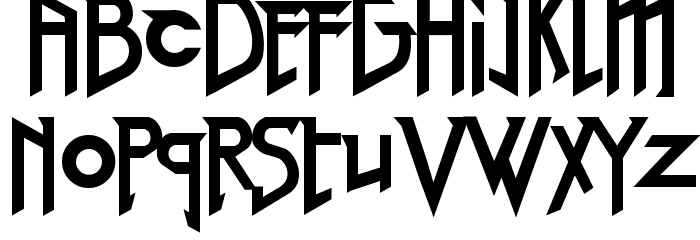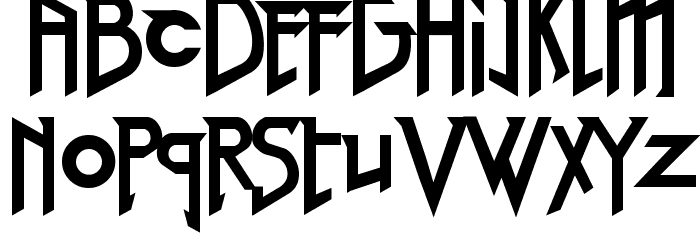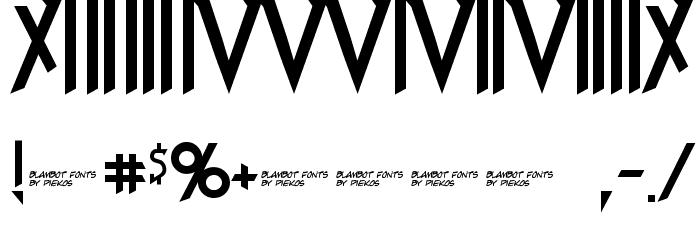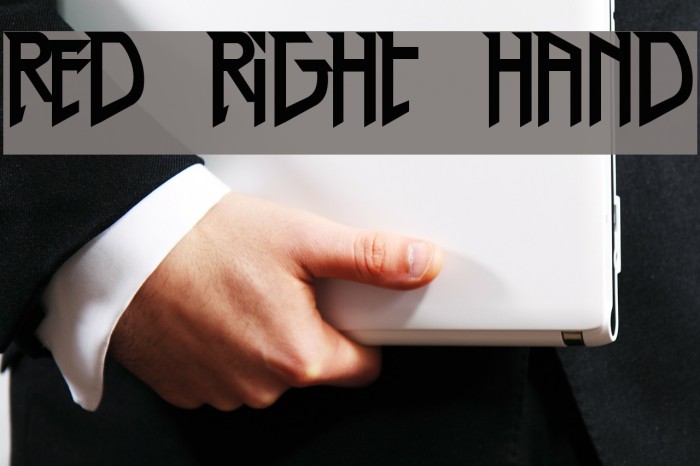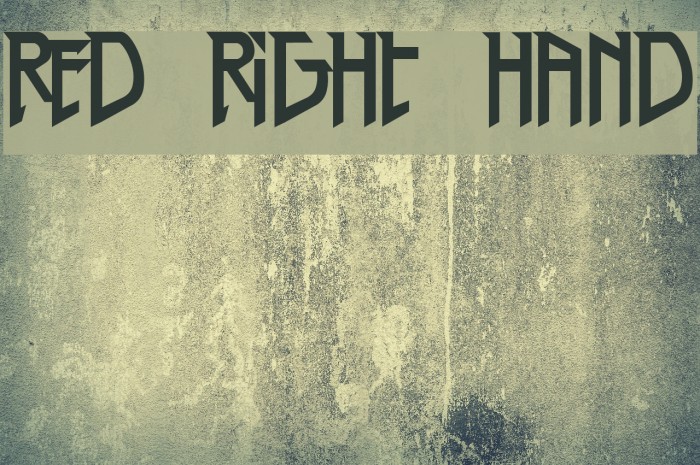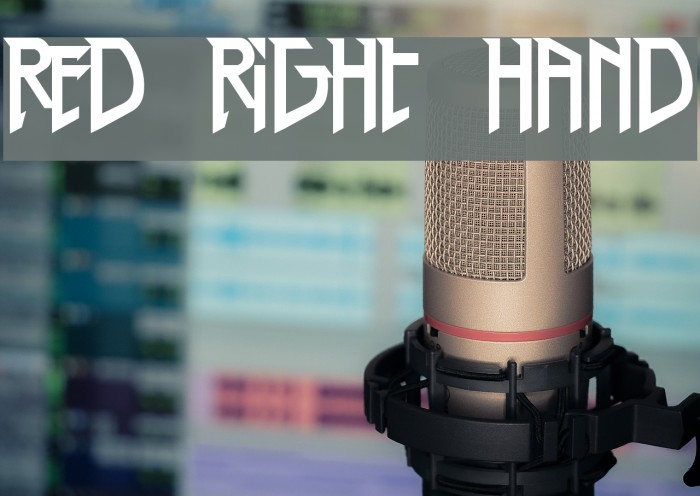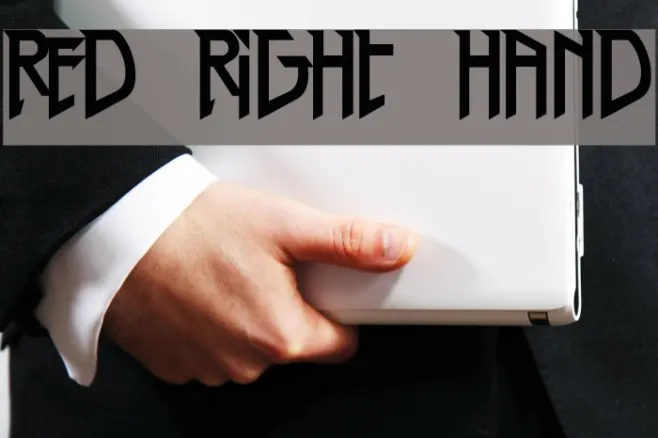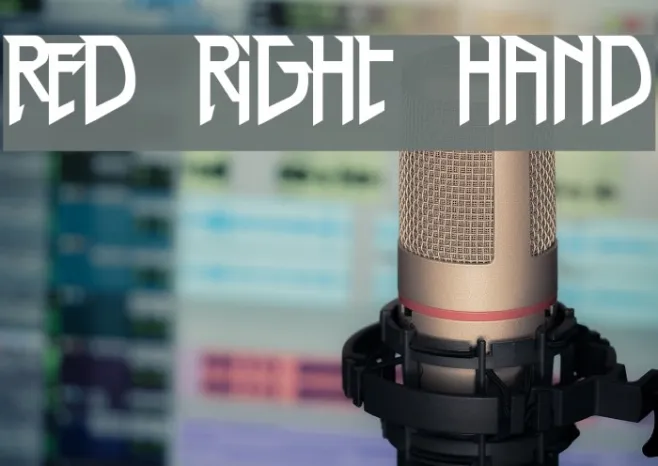
Red Right Hand Font
This font features a bold and angular design, characterized by sharp edges and a geometric structure. The uppercase letters are particularly striking, with a unique blend of straight lines and pointed angles that give it a modern and edgy appearance. The lowercase letters maintain this angular style, ensuring consistency throughout the typeface. The numerals and special characters are crafted with the same attention to detail, making them stand out with their distinctive shapes. This font's boldness and unique style make it ideal for projects that require a strong visual impact.
A bold, angular font with a modern and edgy design.